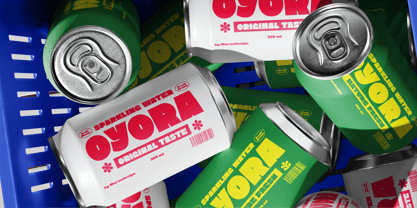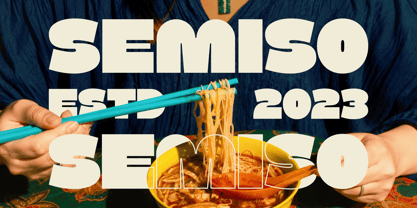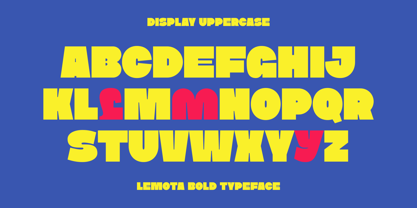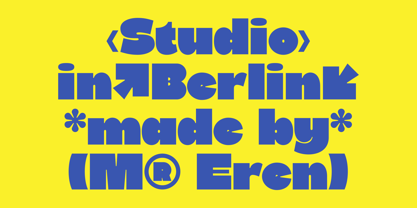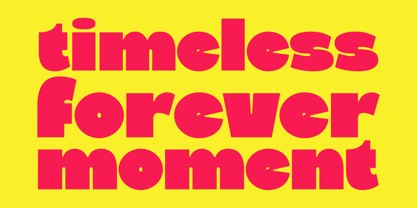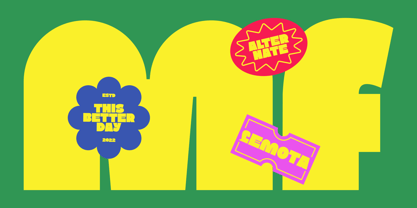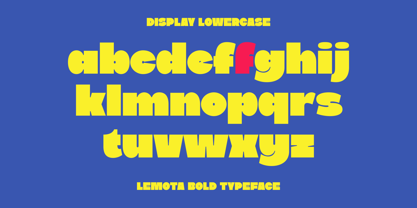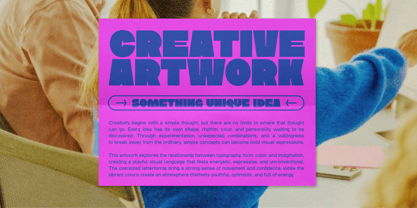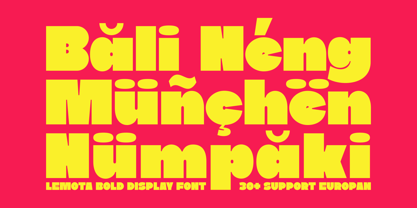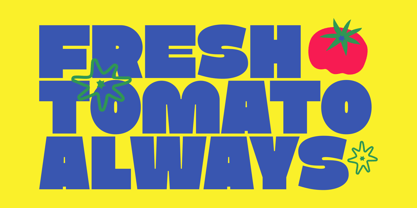
Lemota
by Marvadesign
The Lemota Font Family was designed by Febrie Setiawan and published by Marvadesign. Lemota contains 1 styles. More about this family
Lemota is a bold and highly expressive display typeface designed to bring a playful, energetic, and unconventional personality to typography. Its oversized letterforms feature chunky proportions, heavy strokes, compact spacing, and distinctive geometric cuts that create a strong visual impact while maintaining a fun and approachable character. The rounded forms are combined with sharp notches, unusual terminals, asymmetric details, and playful counters, giving each letter its own recognizable personality. These unexpected shapes make Lemota feel dynamic and slightly experimental rather than following the conventional structure of a traditional sans serif.
One of Lemota most distinctive qualities is its retro-inspired yet contemporary display aesthetic. The exaggerated width, soft curves, bold weight, and irregular construction evoke the visual language of vintage posters, 60s–70s graphic design, playful branding, and modern pop culture. Its alternate characters add another layer of personality, allowing designers to create more spontaneous and varied typographic compositions. The uppercase and lowercase sets have a particularly strong contrast in scale and shape, while the numerals and punctuation maintain the same bold, quirky visual language.
Designers: Febrie Setiawan
Foundry: Marvadesign